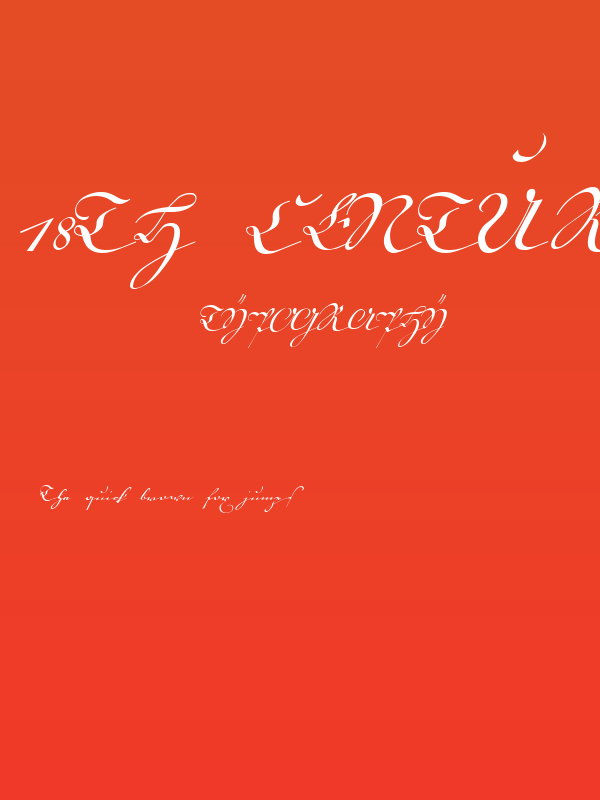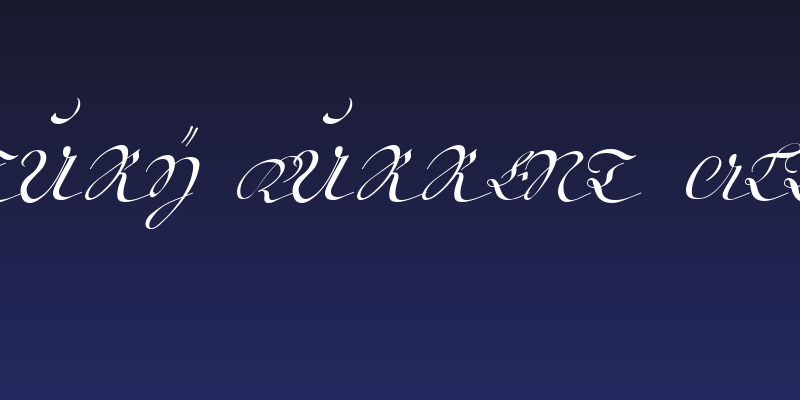
18th Century Kurrent Alternates Font
18th Century Kurrent Alternates Description
This font exudes the elegance and sophistication of 18th-century script styles, characterized by its flowing, cursive letterforms that mimic the fluidity of handwritten calligraphy. The uppercase letters are ornate with intricate loops and flourishes, while the lowercase letters maintain a consistent slant and smooth connections between characters. The numerals are equally decorative, featuring exaggerated curves and stylish embellishments. Special characters are crafted with the same attention to detail, adding a touch of historical charm. The overall impression is one of grace and refinement, making it ideal for projects that require a touch of vintage elegance.
| Proposed Projects | Ideal for wedding invitations, historical documents, certificates, and branding that requires a vintage touch. |